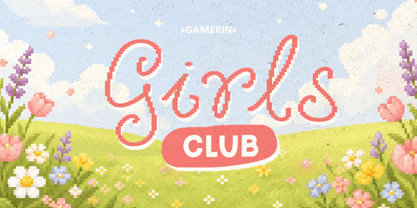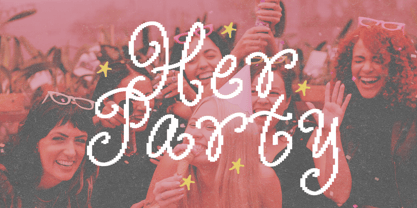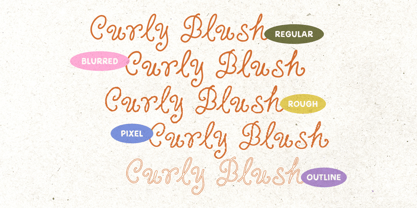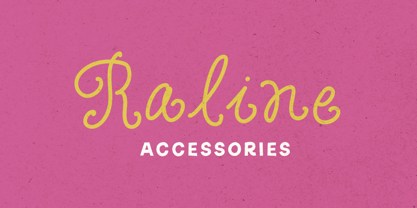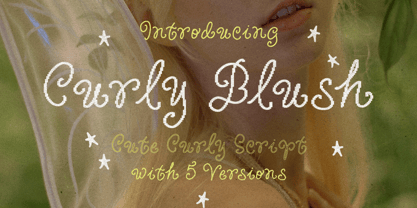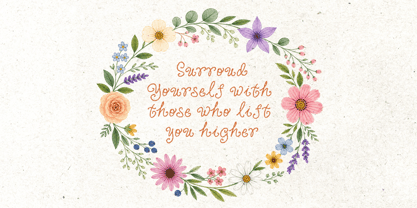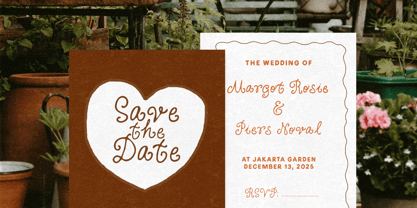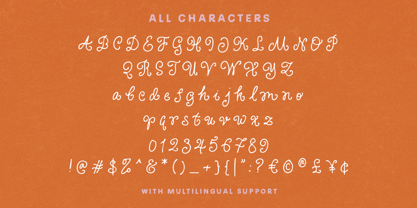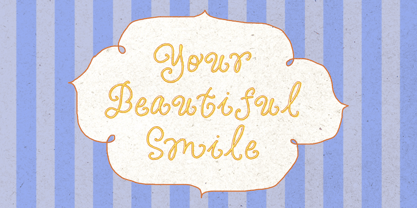
Curly Blush
The Curly Blush Font Family was designed by Aryo Pamungkas and published by Littlehand. Curly Blush contains 5 styles and family package options. More about this family
Curly Blush swirls in with cute curly strokes and a soft handwritten feel that looks straight out of a dreamy scrapbook. The letters are playful, sweet, and full of tiny magical vibes, making every word feel warm and charming. With 5 fun versions to mix and match, this font is perfect for beauty brands, girly logos, invitations, cute packaging, and social posts that want to feel light, lovely, and a little sparkly.
About Littlehand
Littlehand is a collective type foundry based in Yogyakarta, Indonesia, focused on designing playful, cute, and cheerful fonts. As part of the Letterhend studio, Littlehand was created as a dedicated space to explore friendly and expressive typography with a warm and approachable character. Littlehand’s typefaces are thoughtfully crafted to support creative projects that value joy and personality, including children’s designs, branding, packaging, social media, and visual storytelling.